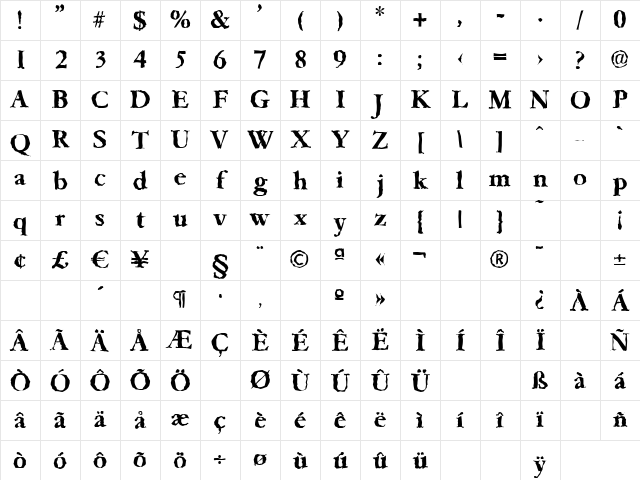
GarfeldRandom Bold
GarfeldRandom Family
Complete GarfeldRandom Bold glyph index. Displaying only characters natively supported by GarfeldRandom Bold font.
Design Context for GarfeldRandom
GarfeldRandom is a composed and adaptable typeface that performs quietly and consistently across a wide range of design contexts. Its bold stroke weight gives it real presence on the page.